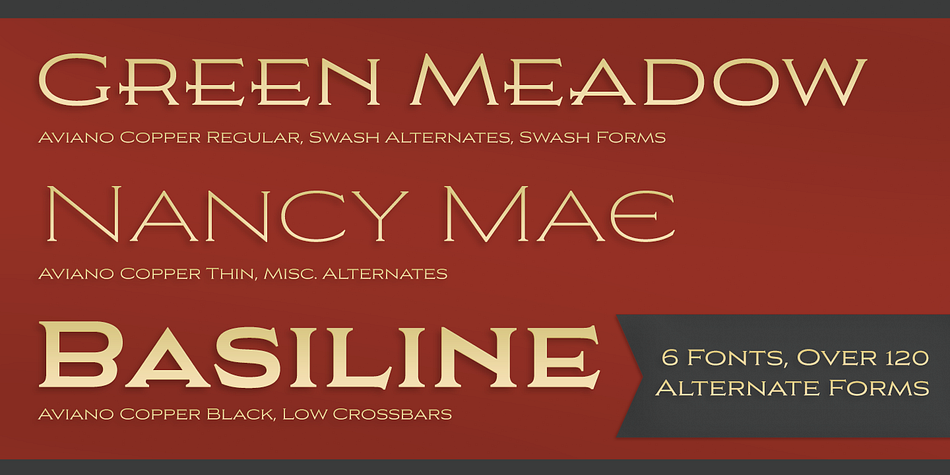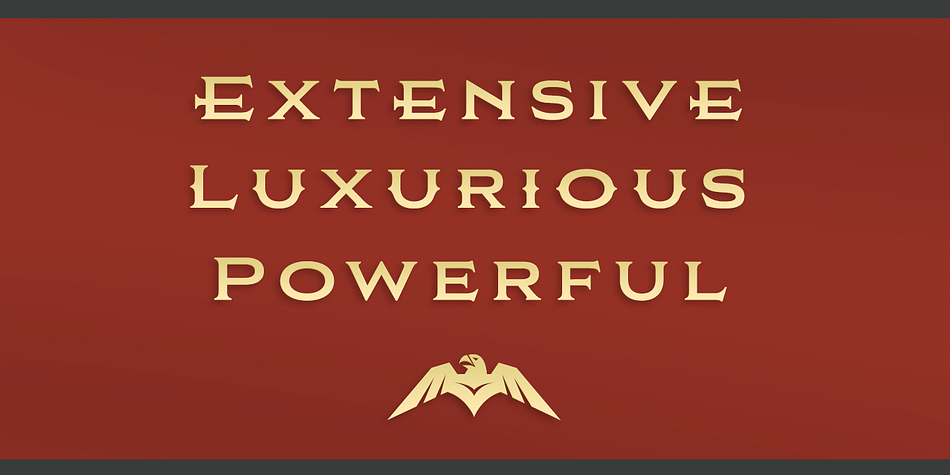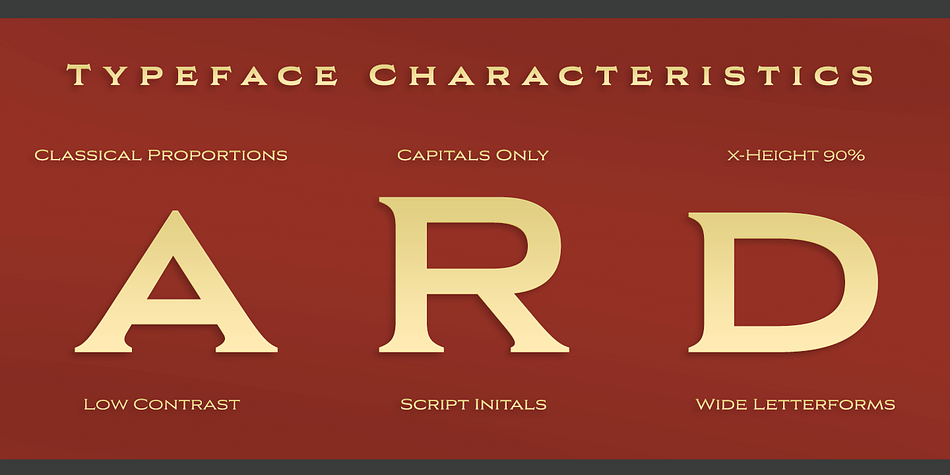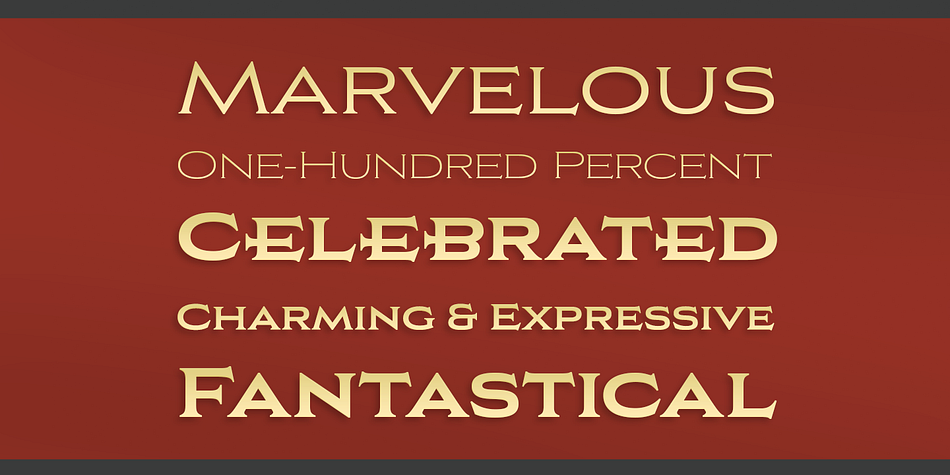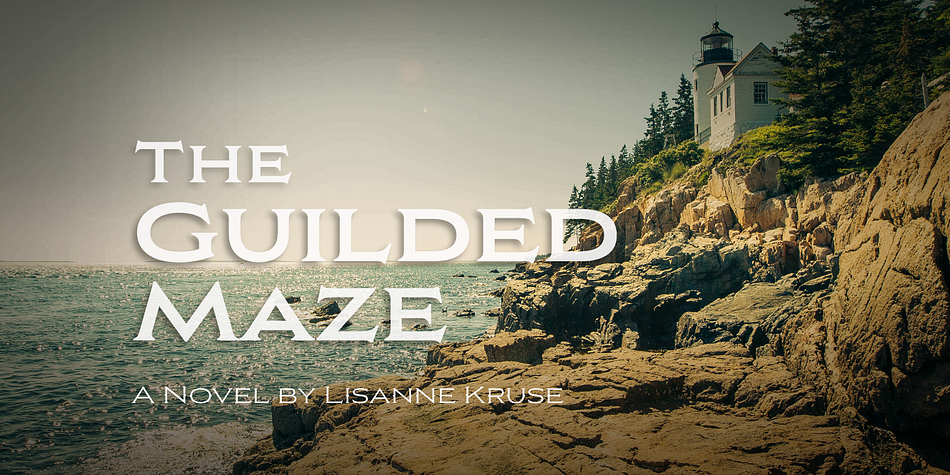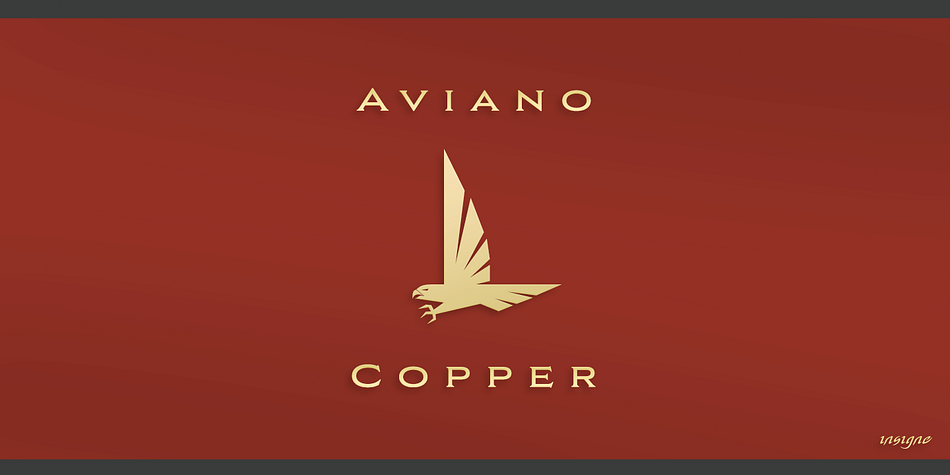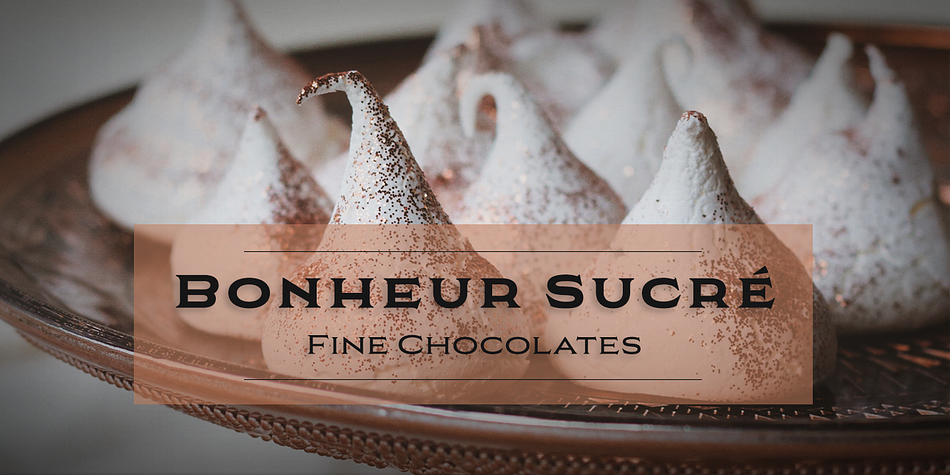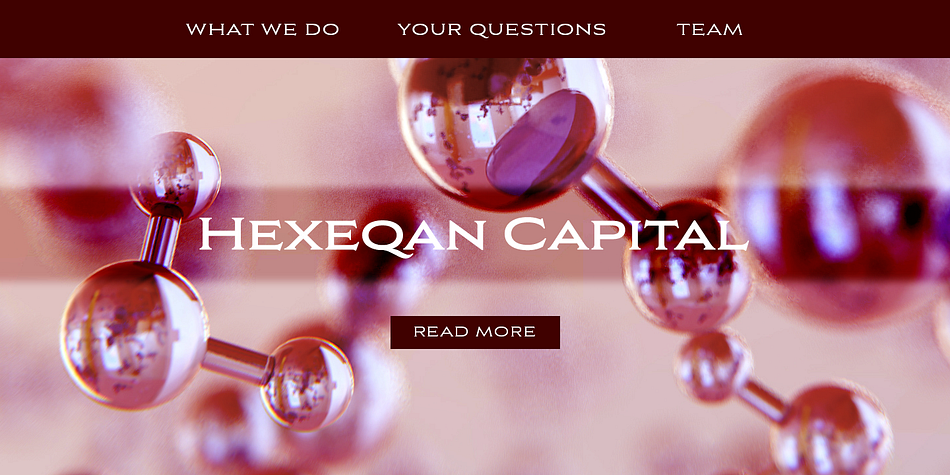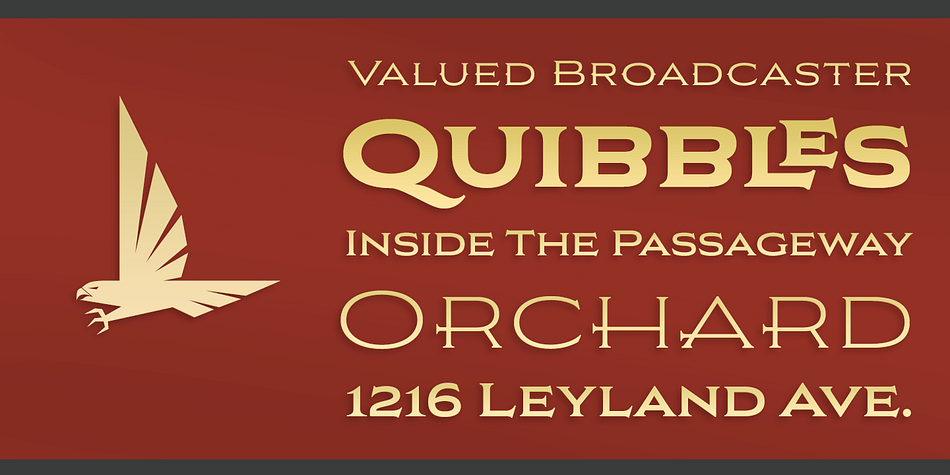
Designed by Jeremy Dooley, Aviano Copper is a display serif font family. This typeface has eight styles and was published by Insigne Design.
The retro-inspired design of Aviano Copper echos the bold style of America’s Gilded Age. Inspired by the copper-inscribed intaglio printing designs of the early 20th century, the powerful, wide character shape of this font walks softly across your page while carrying a big stick. To create the right balance, small wedge serifs were added onto Aviano Sans, giving you a sophisticated style that looks and acts like it belongs nowhere short of Boardwalk.
Developed to a new level of excellence, this design offers a wide range of weights from thin to black. There’s full multilingual support of all Latin-based languages and five stylistic sets, swash designs, and 1000 glyphs per weight, including some unique ligatures. Number options include old style figures, tabular figures, and superscripts. Unique median spur alternates, swashes, and ligatures will help you customize every single design.
The feel of last century’s personal and business correspondence is waiting for you in this member of the Aviano family. While ideal for headings, displays, logos, and short texts, Aviano Copper’s use for everything from letterhead to wine labels may just give you the monopoly you’re looking for.